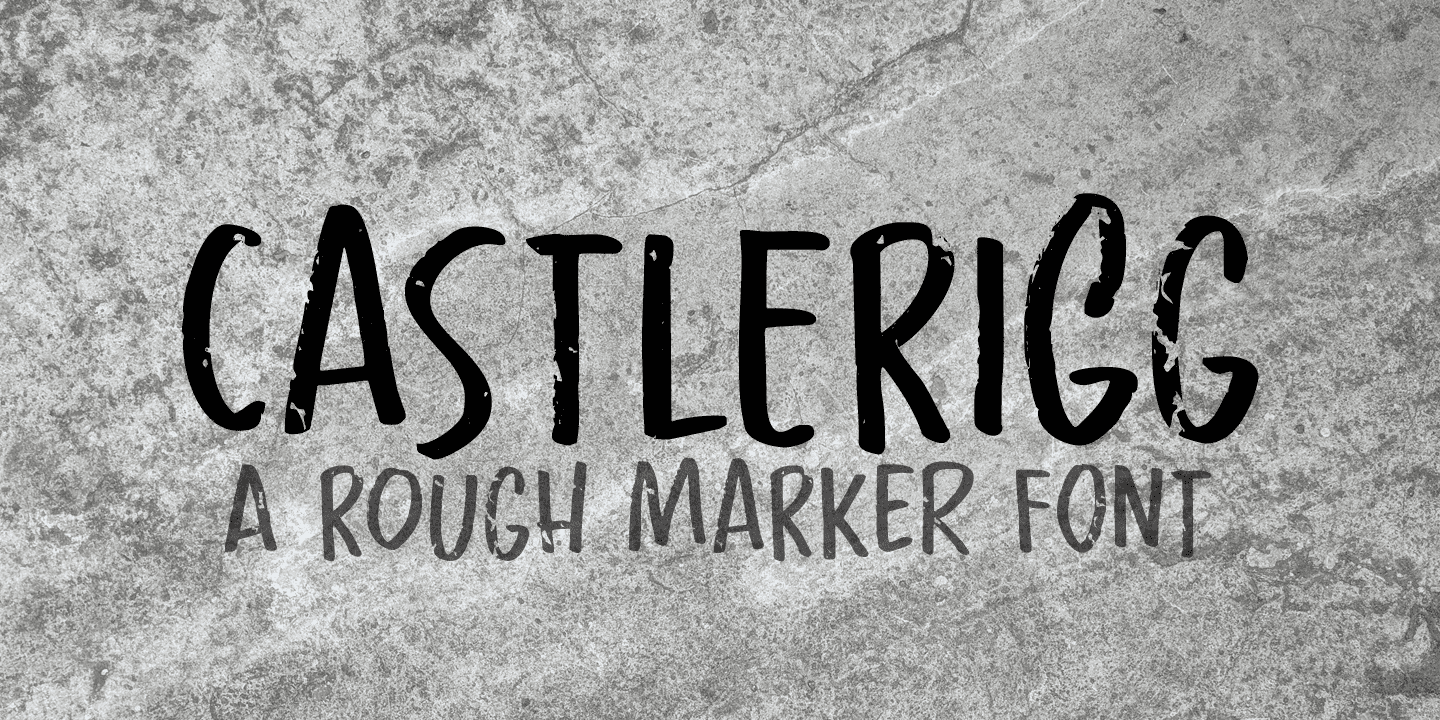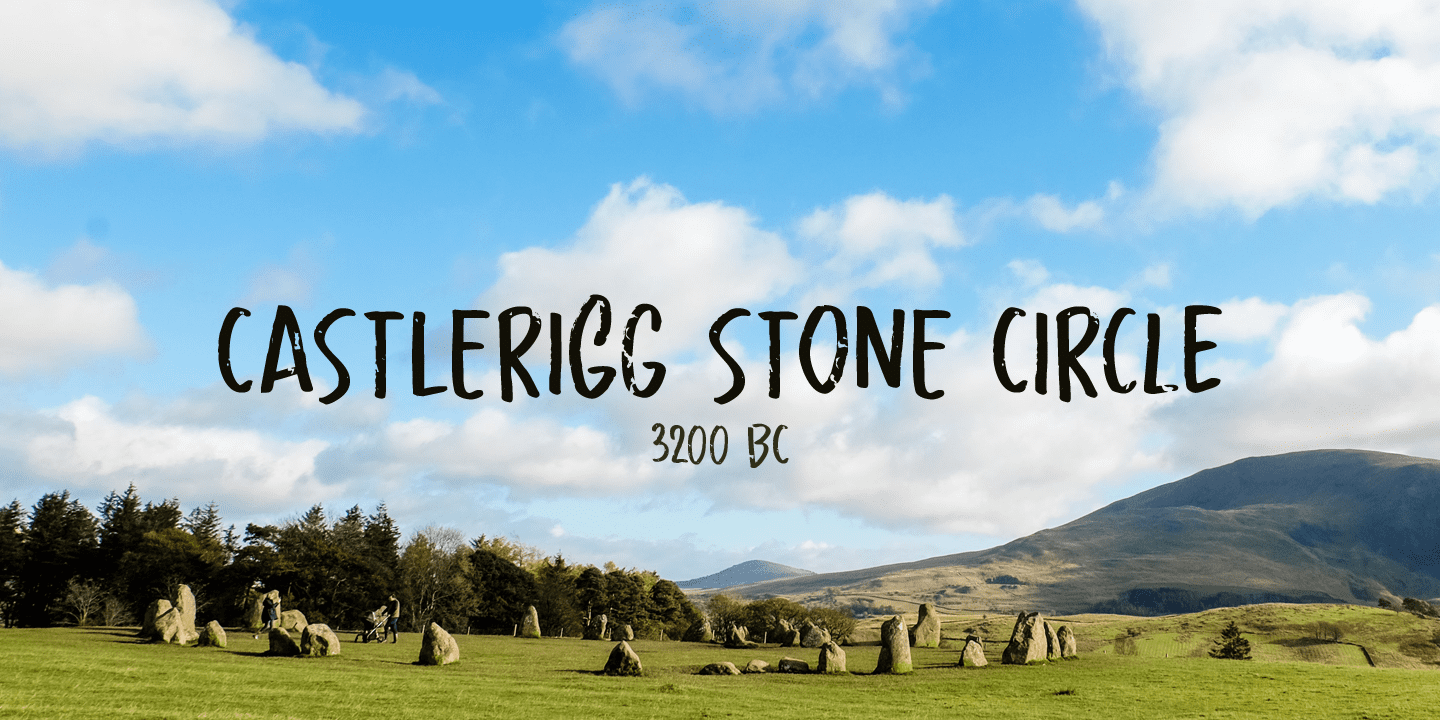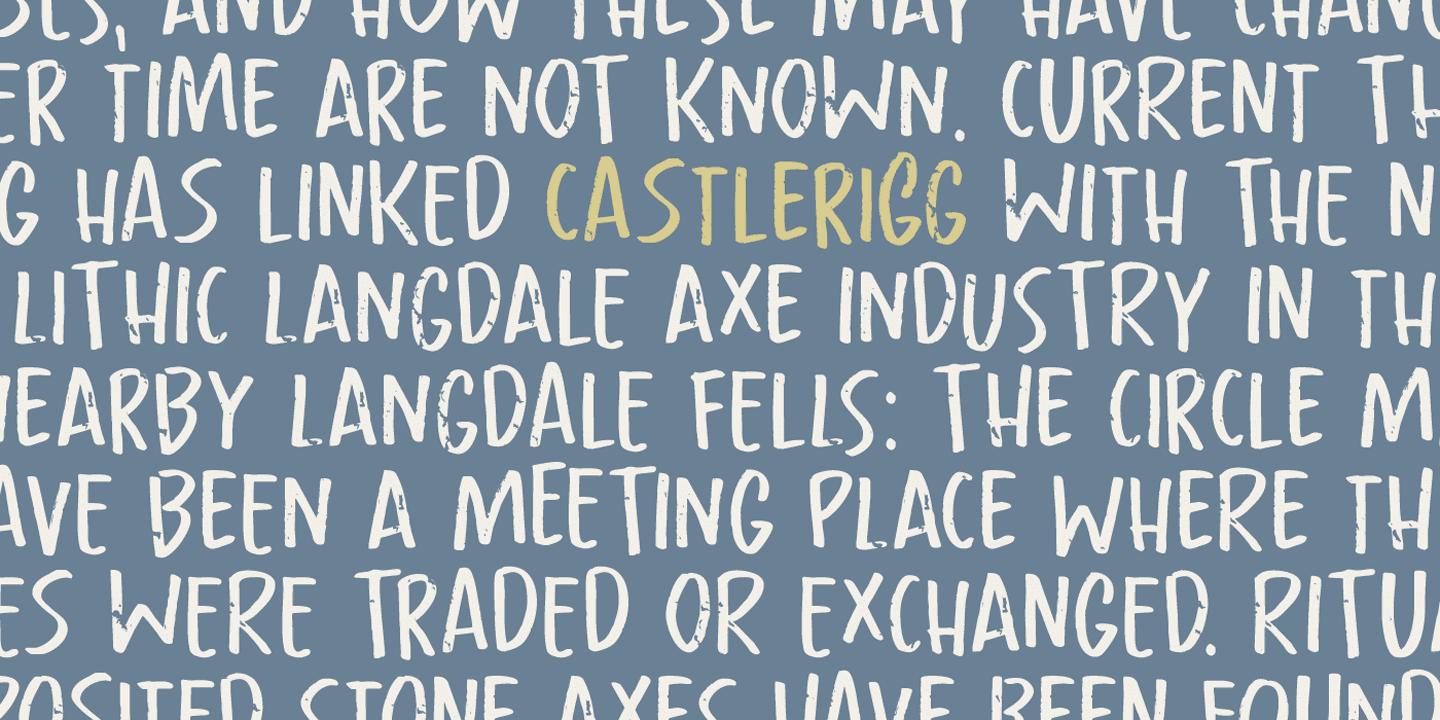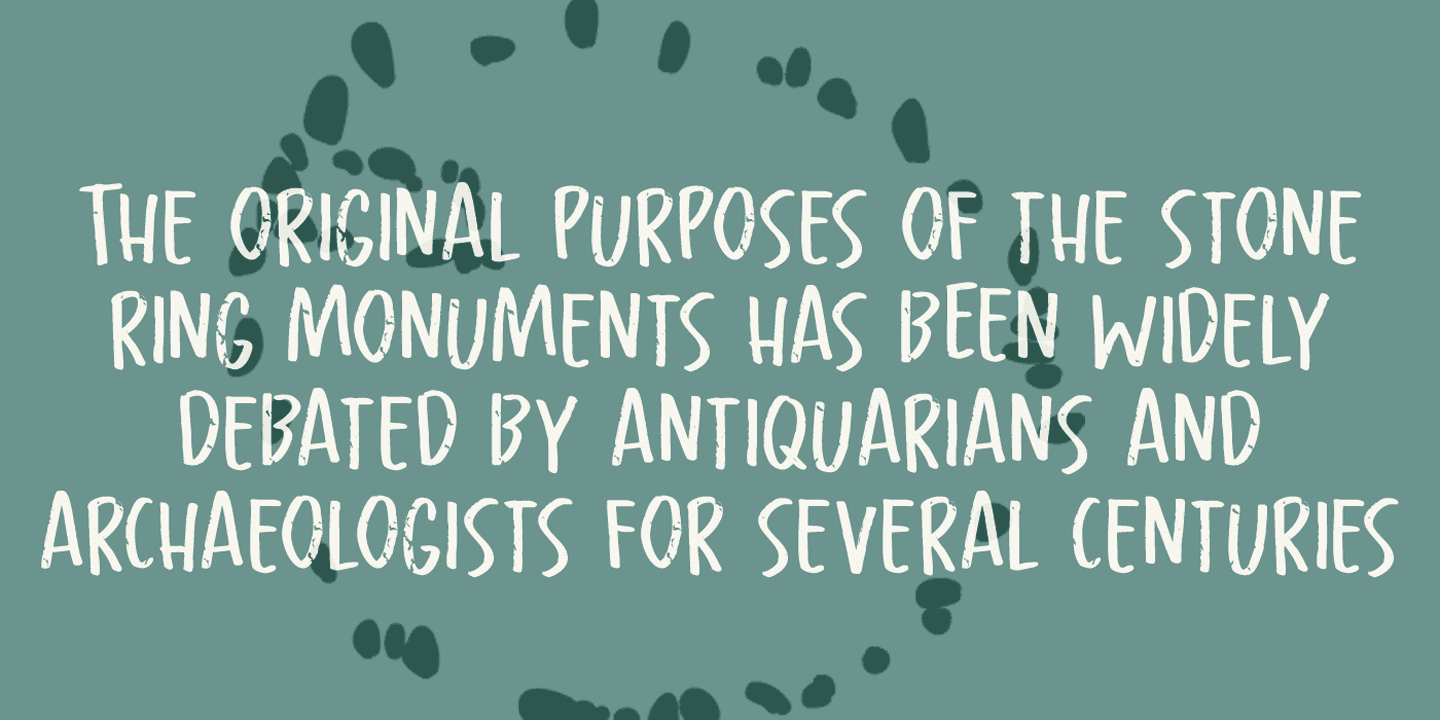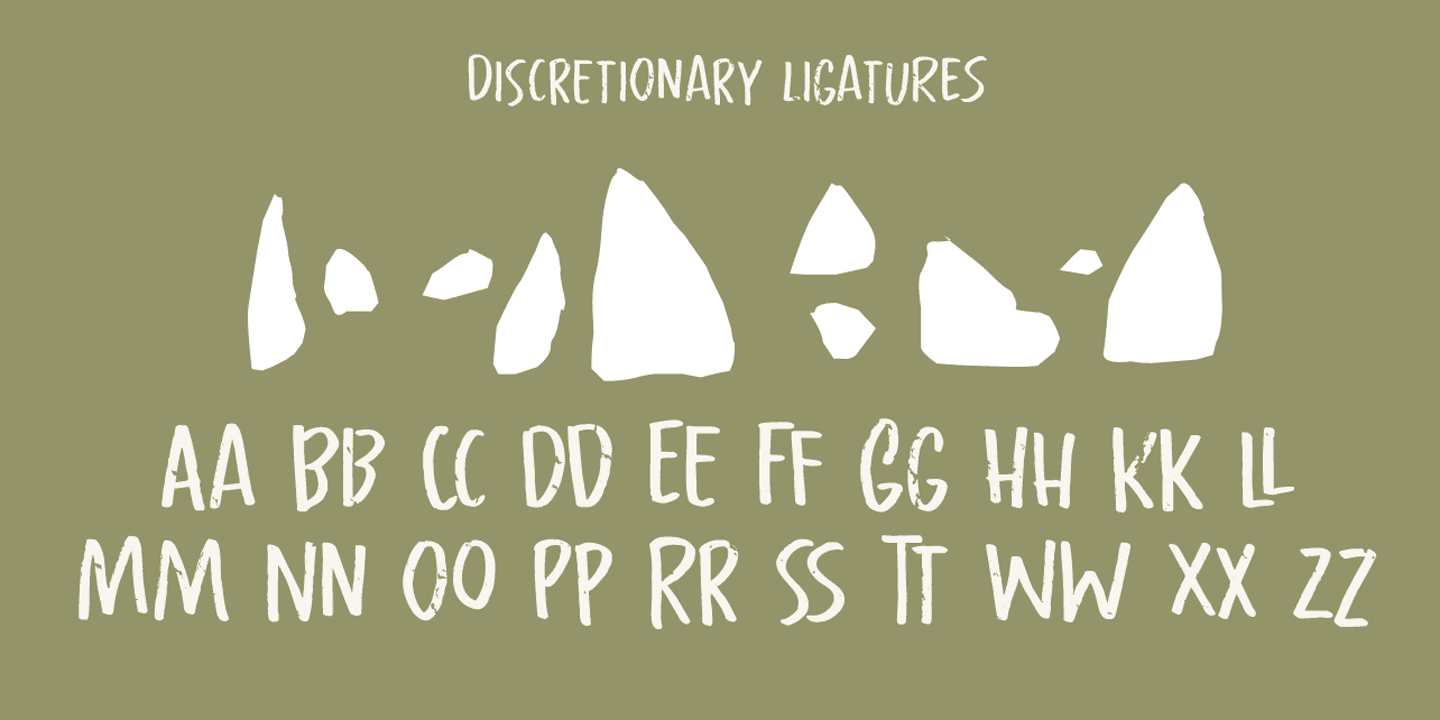
Castlerigg Family (2 fonts)
This rather grungy font was made with a Sharpie pen I initially wanted to throw away, because it was dry, but then decided I could at least get one more font out of it. The result is Castlerigg - a rather neolithic looking all caps font.
Castlerigg comes with double letter ligatures for the lower case.